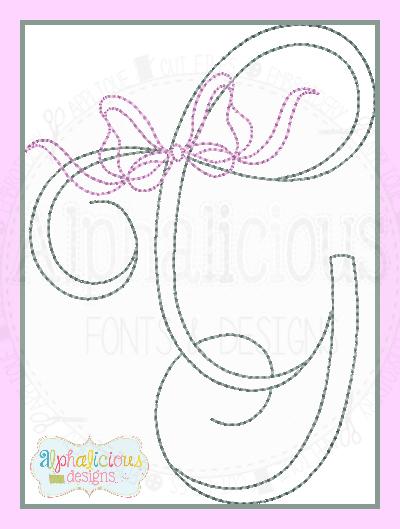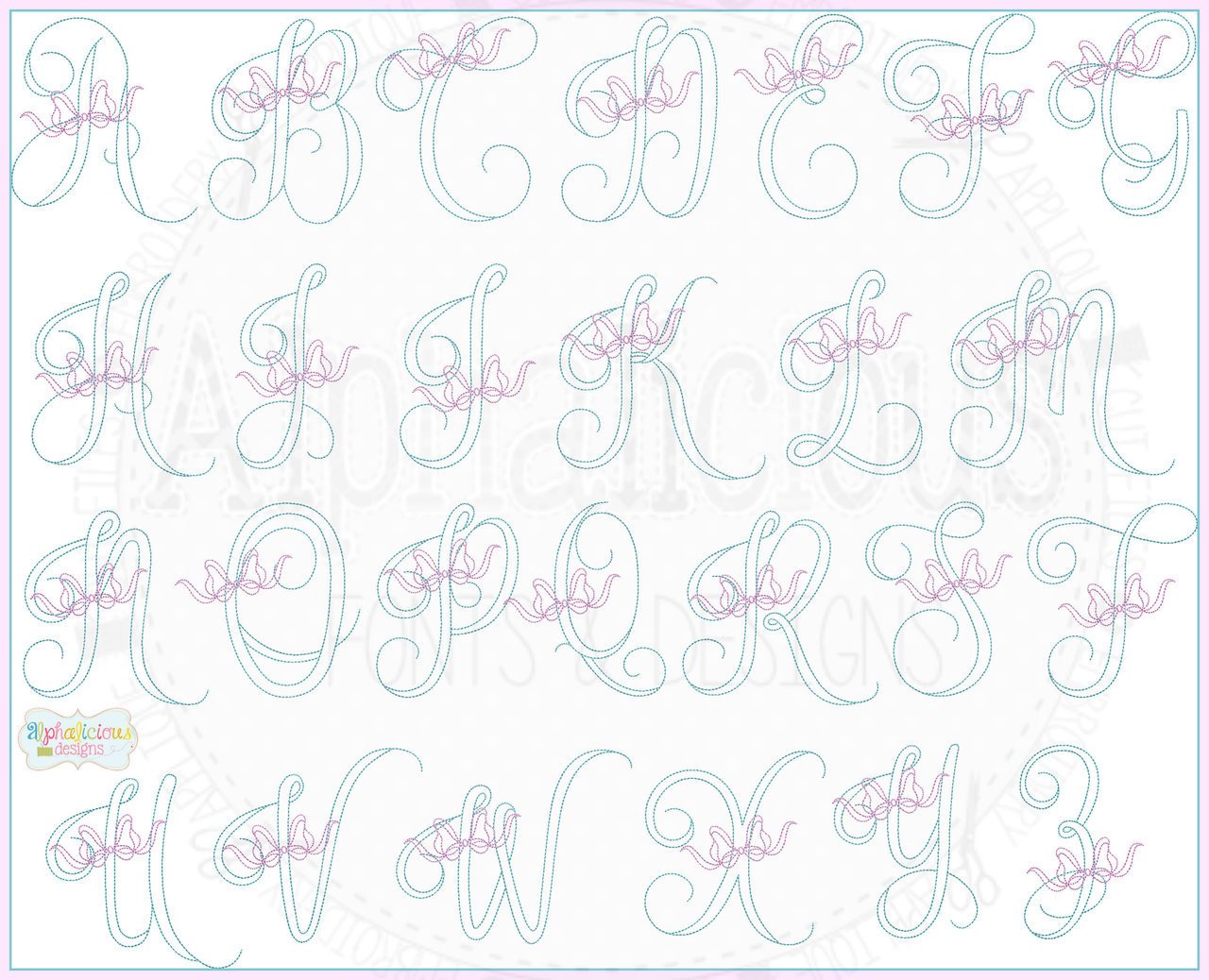
Vintage Bow Embroidery Font
This font is so elegant and playful at the same time! It features a triple vintage stitch for a simple yet adorable monogram! Sizes included: 2", 3", 4", 5", 6", 7", 8" CAPITALS ONLY